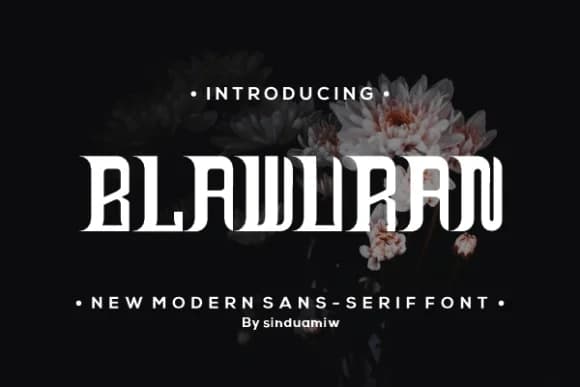
Blawuran by sinduamiw is a bold, high-contrast slab serif that demands attention the moment it hits the page. The weight and visual presence make it especially strong for promotional badges and sale stamps, distinctive product labels, and retail signage designed to stop customers in their tracks. Slab serifs with this kind of boldness thrive in settings where restraint takes a back seat: event posters, vintage-inspired packaging designs, and brand identity systems that need confident, direct typography to do the heavy lifting.
The typeface performs well at display sizes and holds its character in smaller applications too, offering genuine versatility across different scales and contexts. Designers reach for this kind of presence when building badge systems for small businesses, creating labels for artisanal goods, designing business promotion and seasonal sale materials, or working on identity marks that need real visual weight. The unapologetic boldness reads as deliberate rather than forced or overwrought. Its solid, dependable construction matters when typography carries the branding load and needs to convey authority. Grab Blawuran on Creative Fabrica and put it to work on your next high-impact project that demands presence.
Blawuran Font is a slab serif font that shines as a display or heading face. Pair it with a clean sans-serif or serif font for body text β the contrast creates a clear hierarchy while the two styles stay balanced and easy to read.